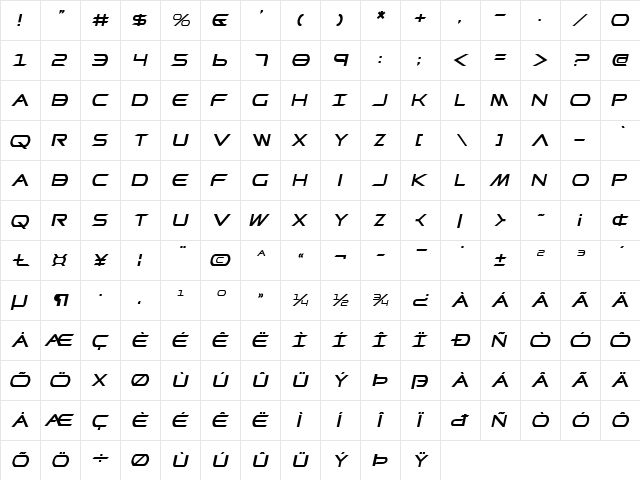
Promethean Italic Italic
Design Context for Promethean Italic Typeface
Promethean Italic offers clean, dependable letterforms without strong stylistic allegiance, making it a practical choice for designers who need flexibility. The slanted form adds forward momentum and visual energy.
Pro Tip: Use Promethean Italic for emphasis, pull quotes, and subheadings where its slanted energy can add rhythm to the layout.